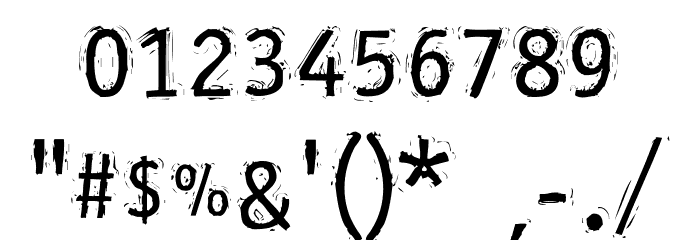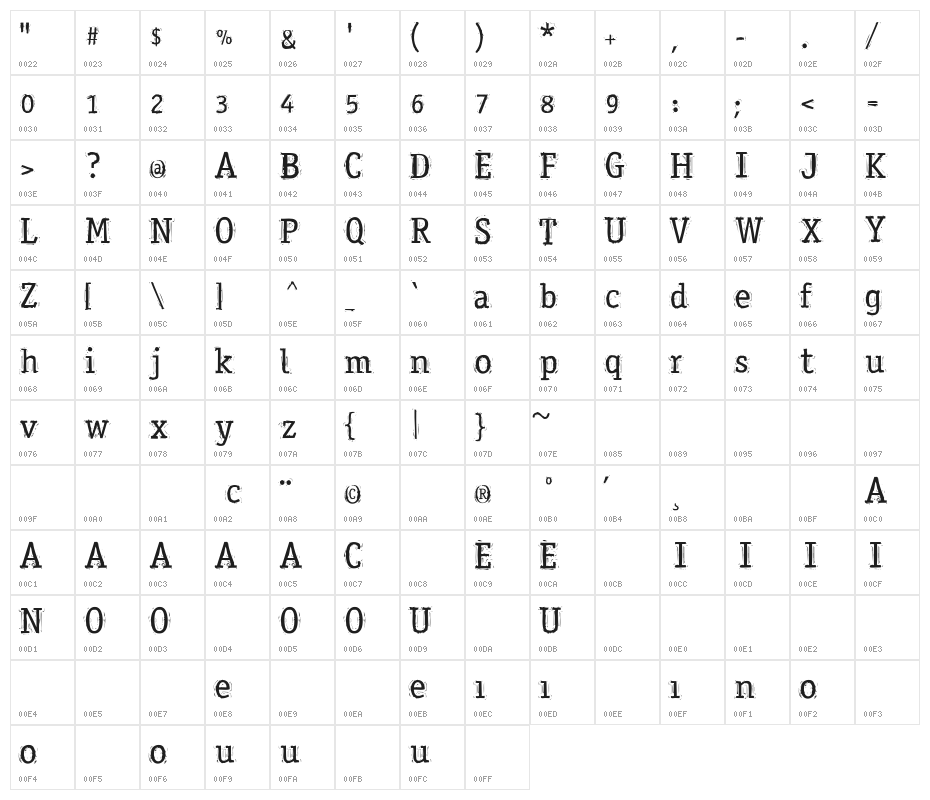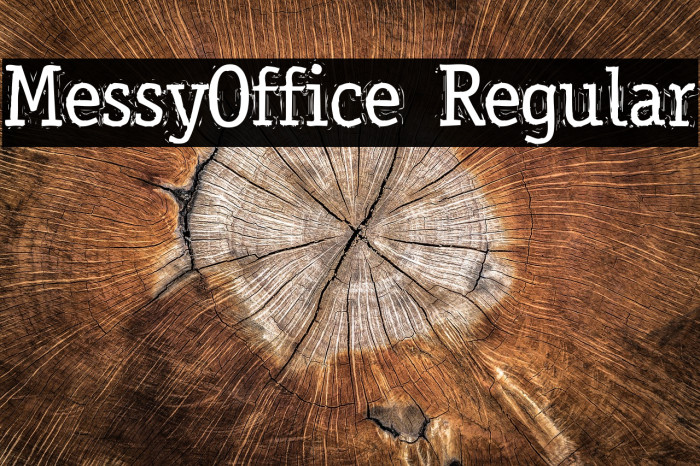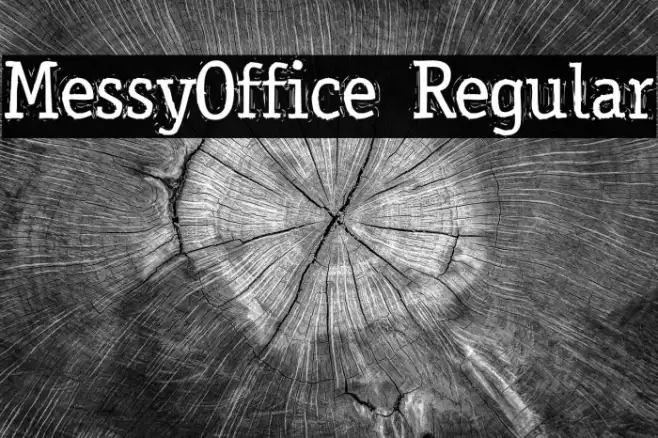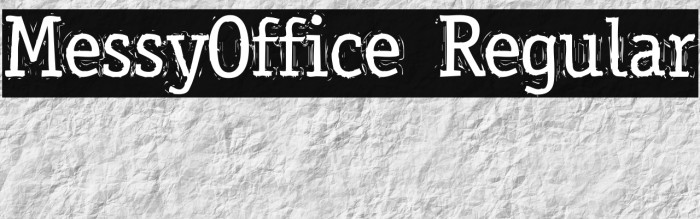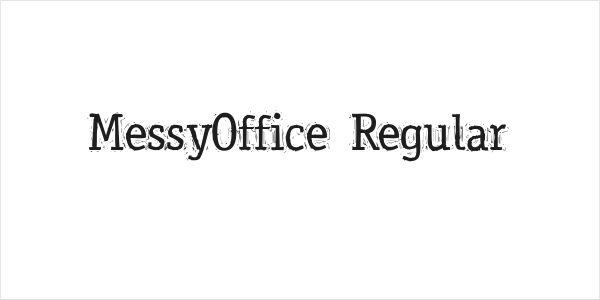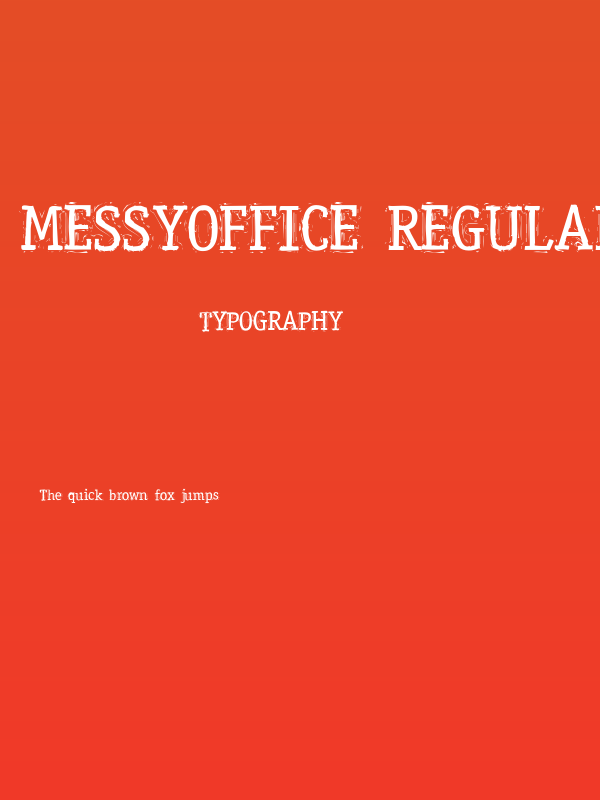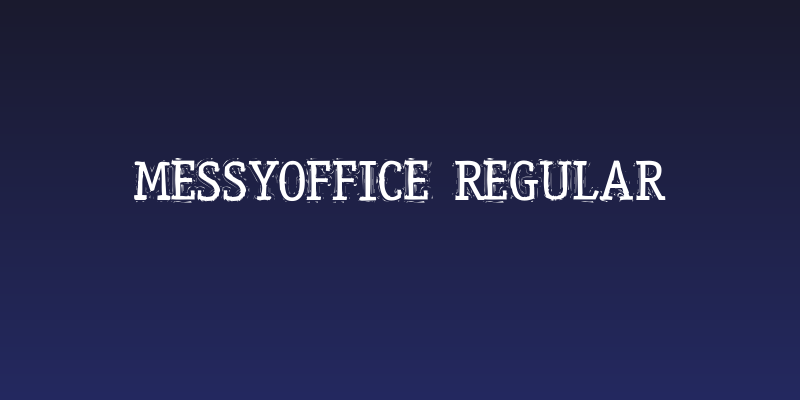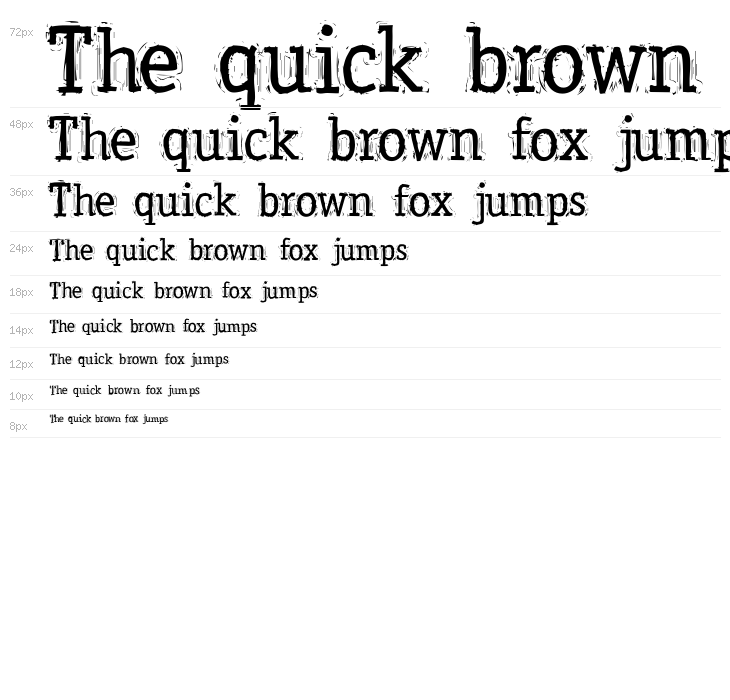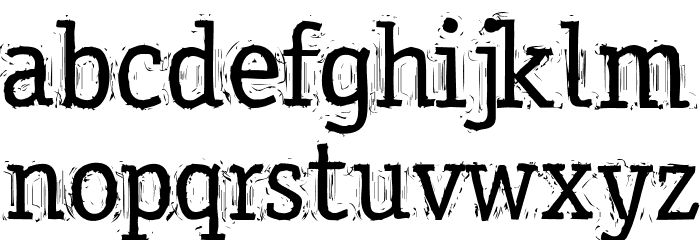
This font features a distressed, grunge style with a rough, textured appearance. Each character appears as if it has been stamped or printed with a slightly uneven ink distribution, giving it a worn and vintage feel. The uppercase and lowercase letters maintain a consistent height and width, while the numbers and special characters follow the same rugged aesthetic. The overall design is bold and eye-catching, making it suitable for projects that require a strong visual impact. The font's unique style can add character and depth to various design elements.
| Proposed Projects | Ideal for posters, album covers, branding for edgy or alternative products, and any design needing a vintage or rugged look. |